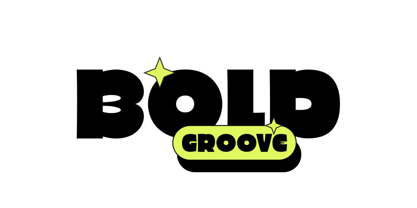
Bold Groove
por Wasabib Type Foundry
La familia tipográfica Bold Groove fue diseñada por Miftahul Habib y publicada por Wasabib Type Foundry. Bold Groove contiene 1 estilos.
Is a typeface that carries powerfull message in a
modern graphic style with ease.
it uniquely combines simplicity and sophistication.
BOLD GROOVE has everything you need to add creativity
and personality to your design while being easy to read.
Let Bold Groove impress your viewers and
help deliver your message with strong impact.